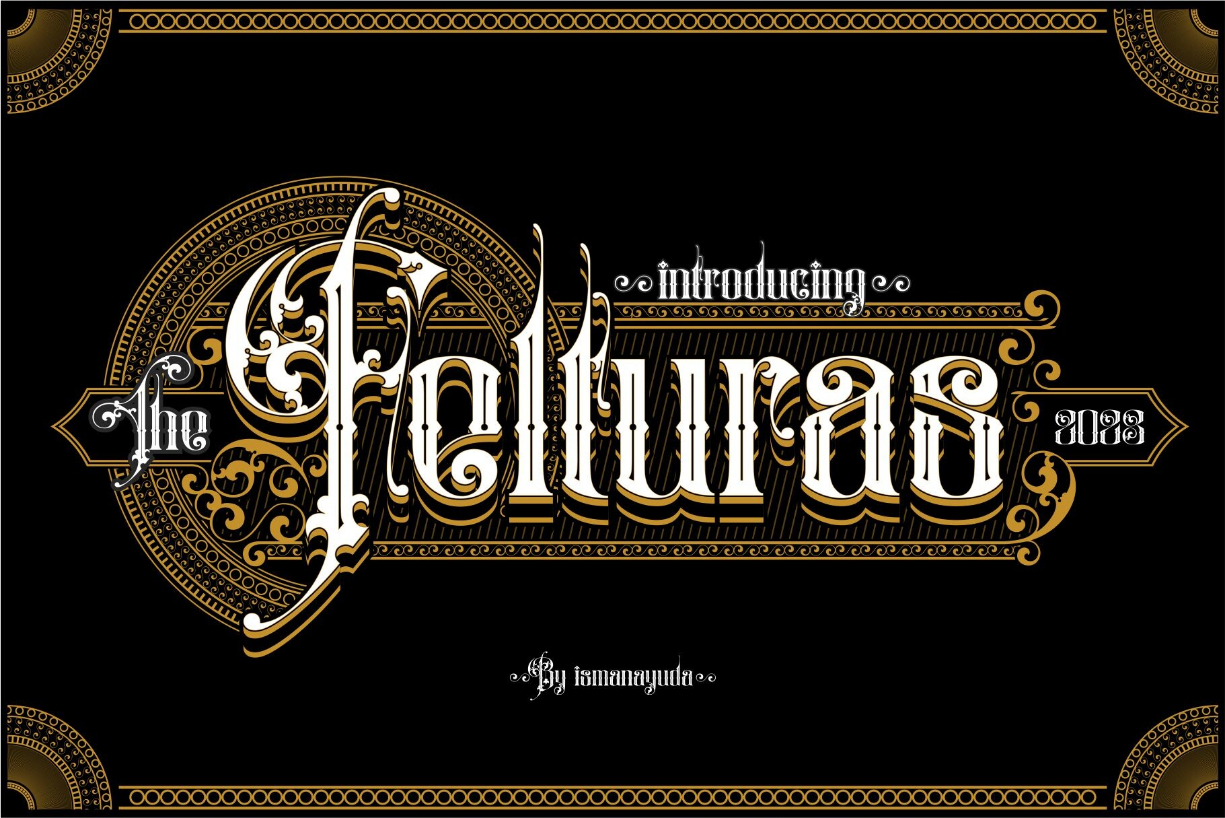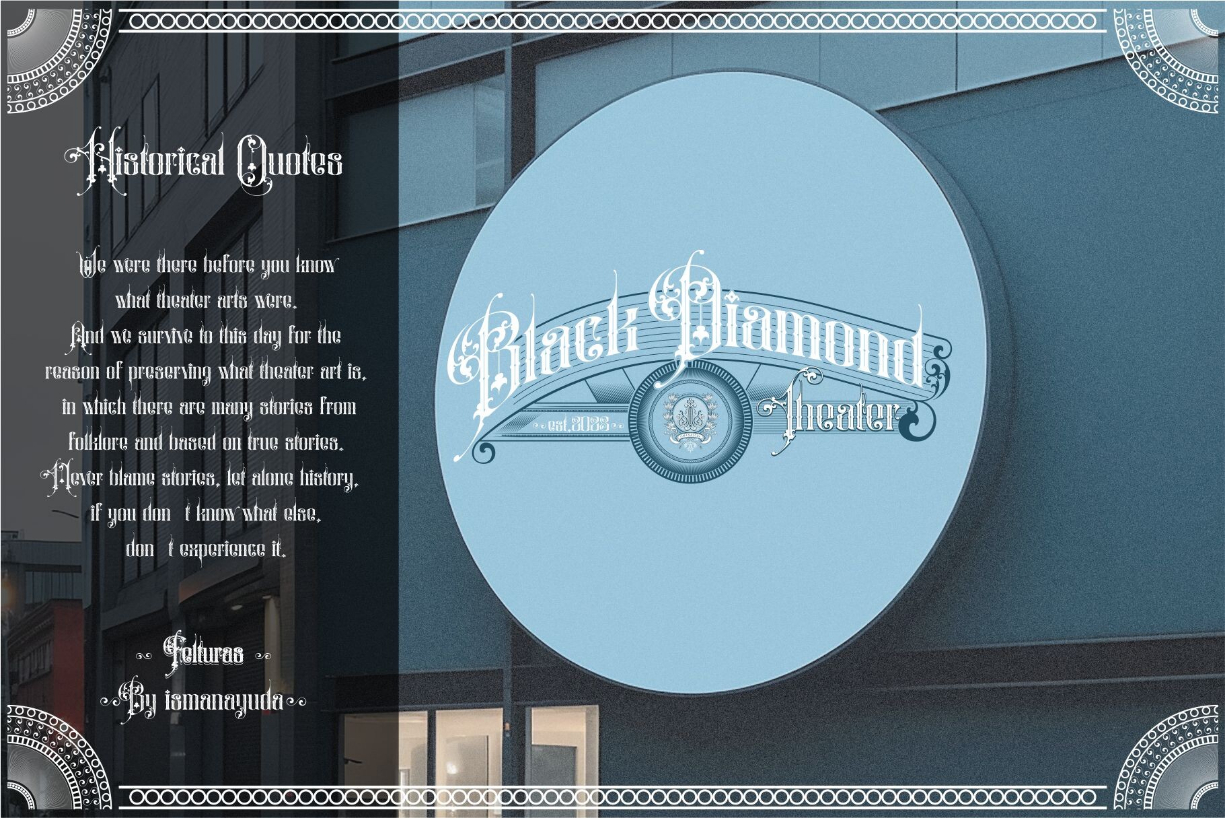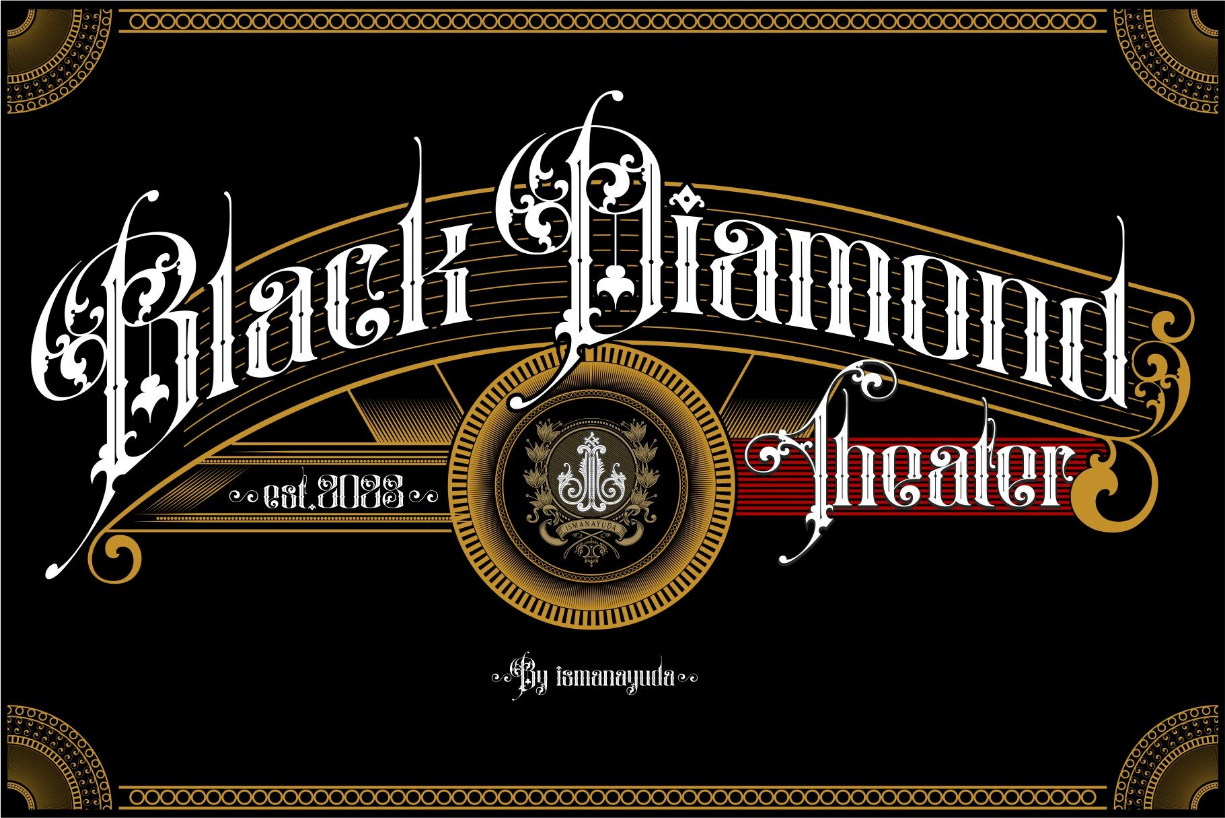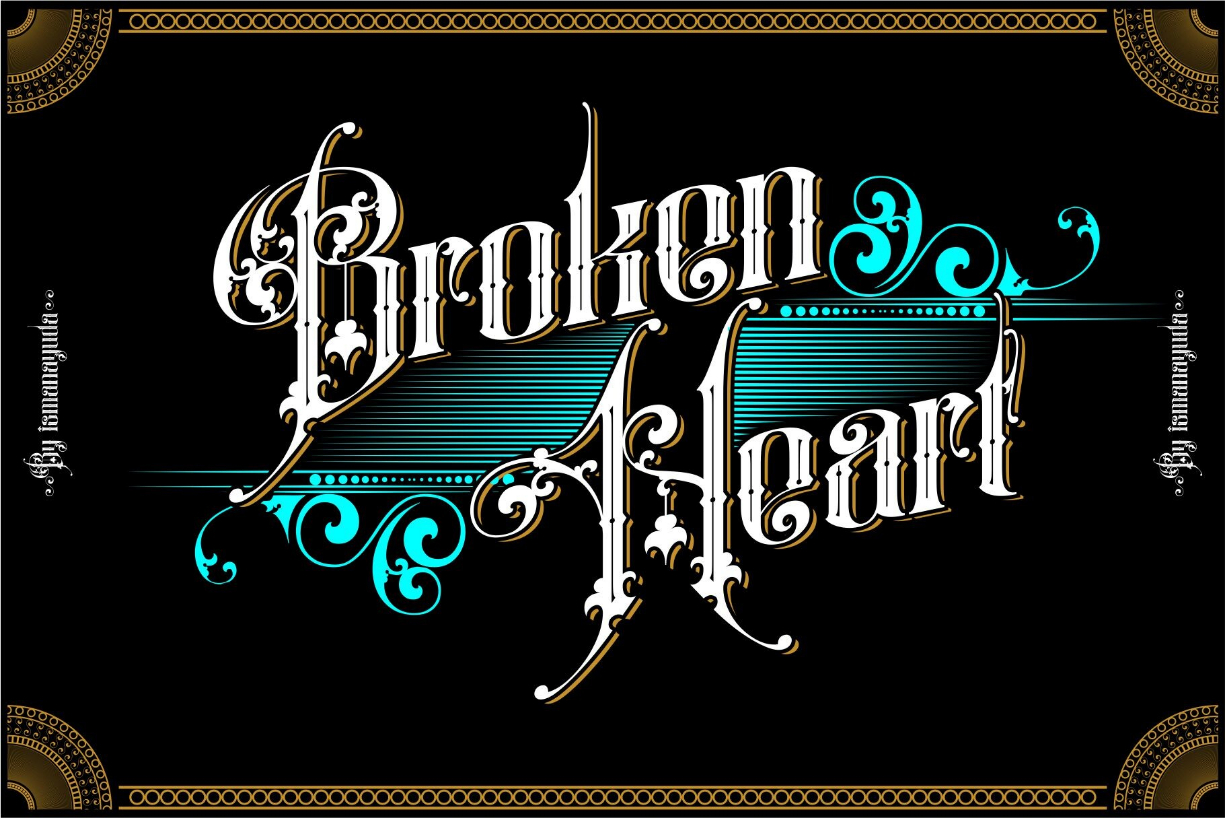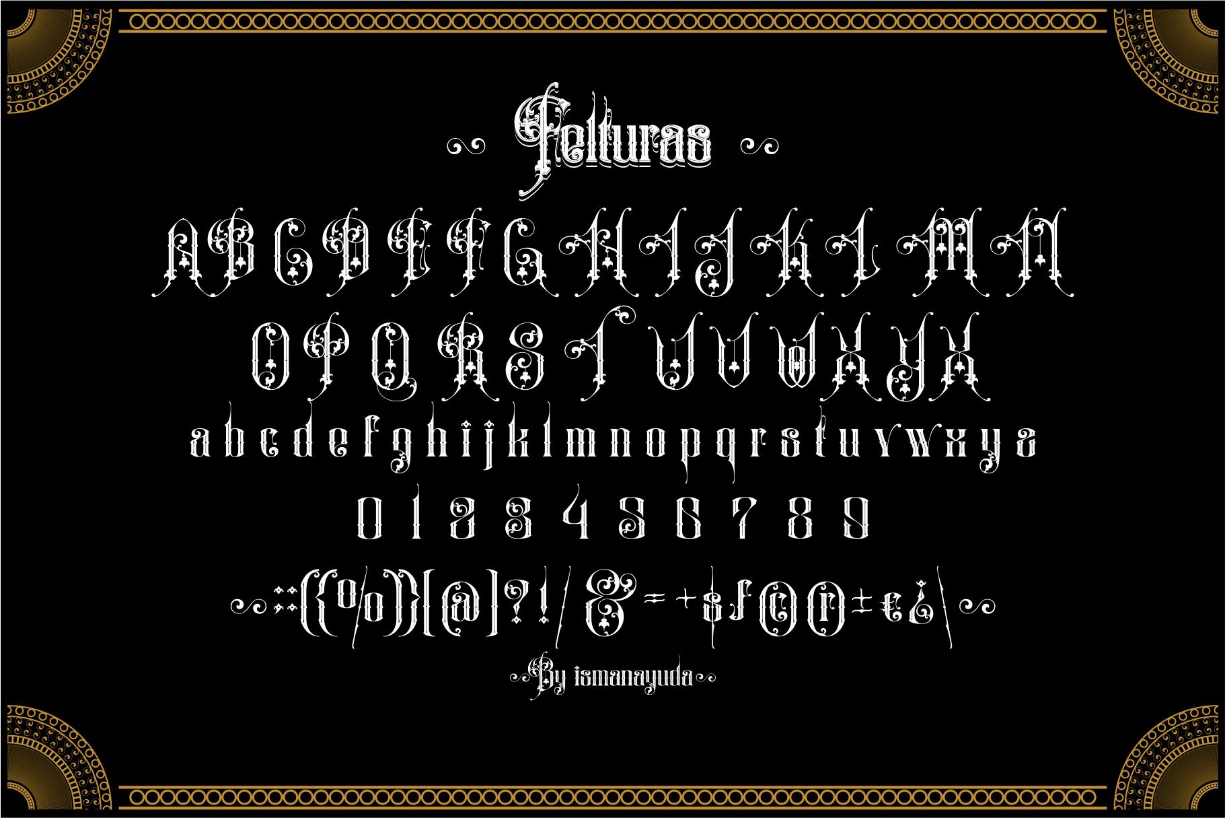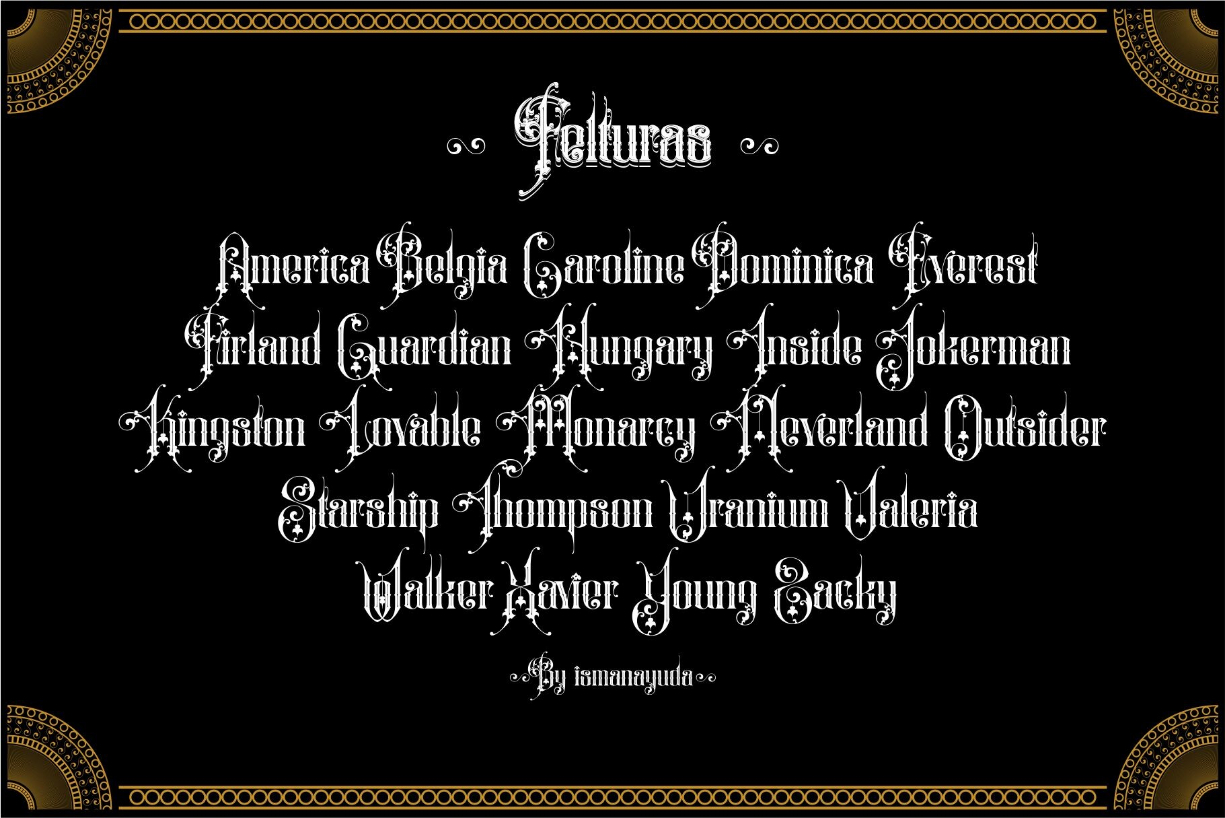
Felturas Font
About Felturas Font
Felturas is a unique font that has a Victorian style.
This font is suitable to meet your needs which include studio tattoos and mock-ups for clothes as well as mock-ups for castle-style shops.